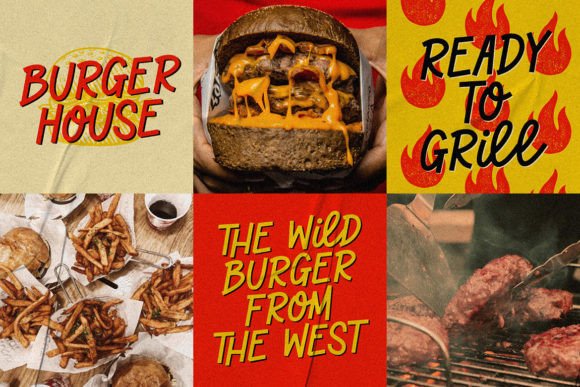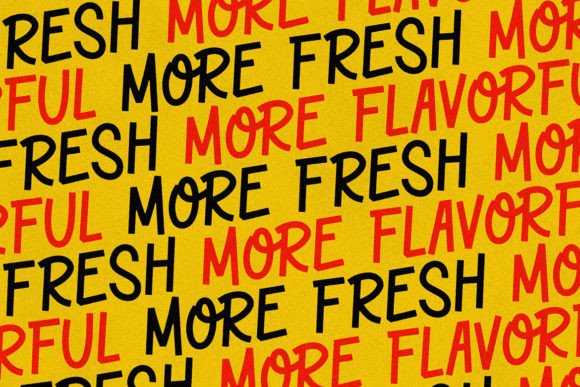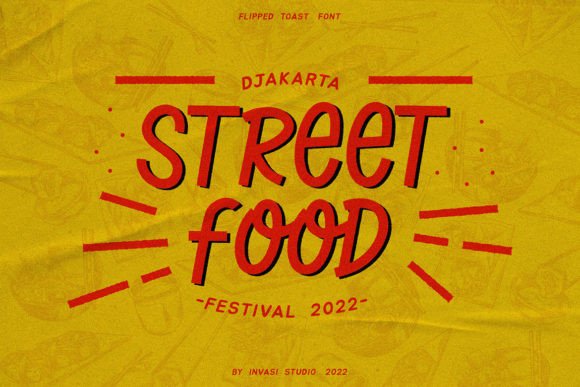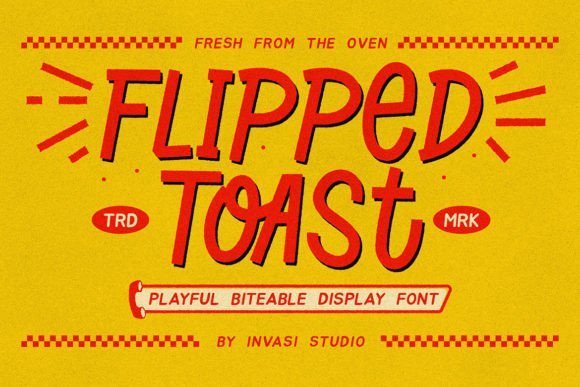
Introduction to Flipped Toast Font
Flipped Toast is a playful and juicy display font.
There is a combination of modernity, playfulness, and formality in it This font will add a friendly and joyful touch to your designs so add it confidently to your projects and you will love the results.